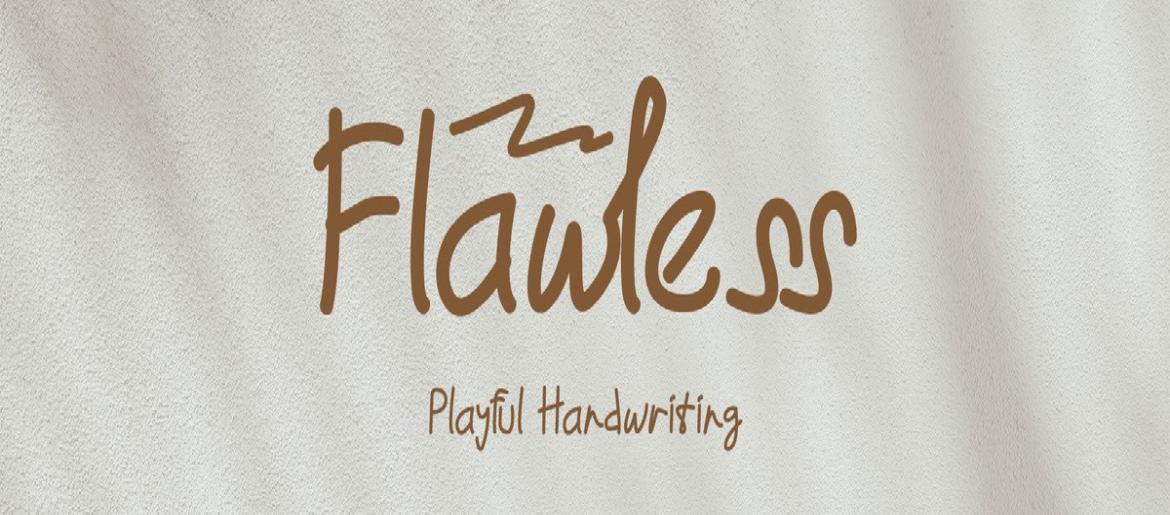
Flawless Font
Flawless Handwriting by More Type is a typeface that captures the relaxed confidence of genuinely good penmanship — the kind that feels natural rather than laboured, personal rather than mechanical. Its letterforms move with an easy, unhurried rhythm that makes it equally at home across a wide range of creative applications: branding that wants to feel human, editorial layouts that need breathing room, stationery, social media headers, and any context where the warmth of a handwritten touch adds something a polished sans-serif simply cannot. Clean, legible, and quietly expressive. Free for personal use.
Flawless Handwriting is a graceful handwritten typeface in our free font collection, designed by More Type — a type designer from Kediri, Indonesia, with a consistent focus on friendly, well-crafted lettering released for the wider design community. Browse our full library of free fonts and discover more distinctive typefaces crafted by independent designers around the world.